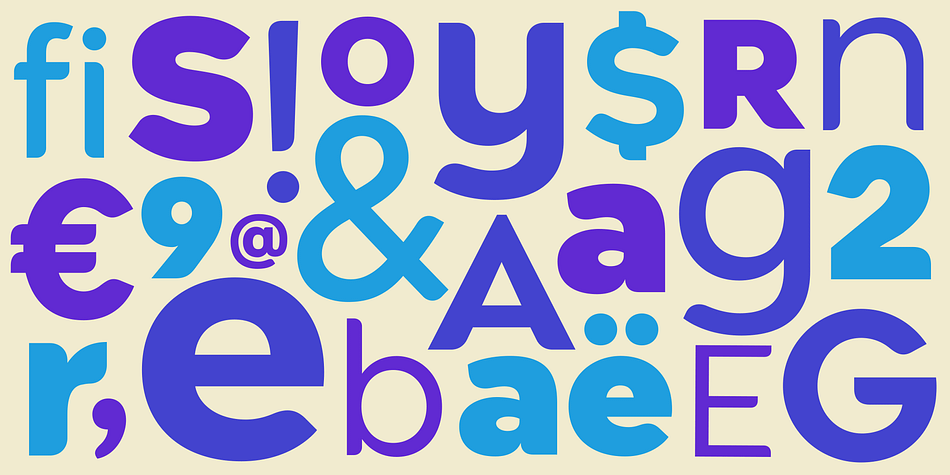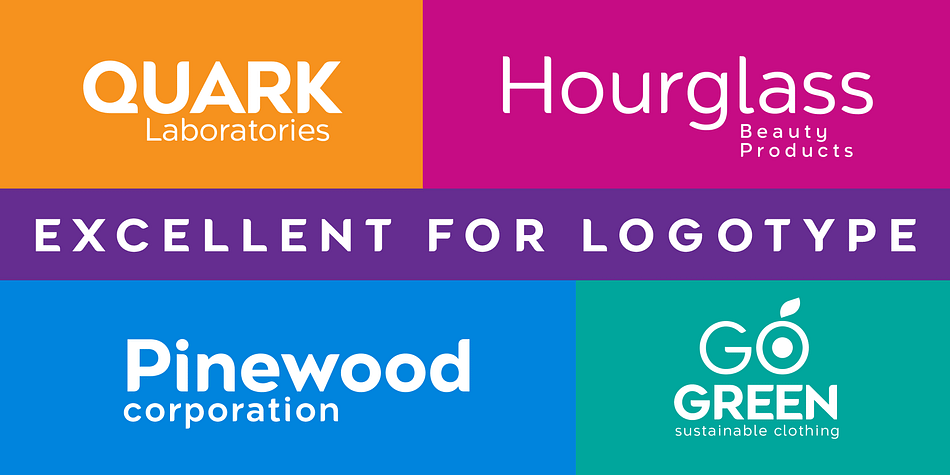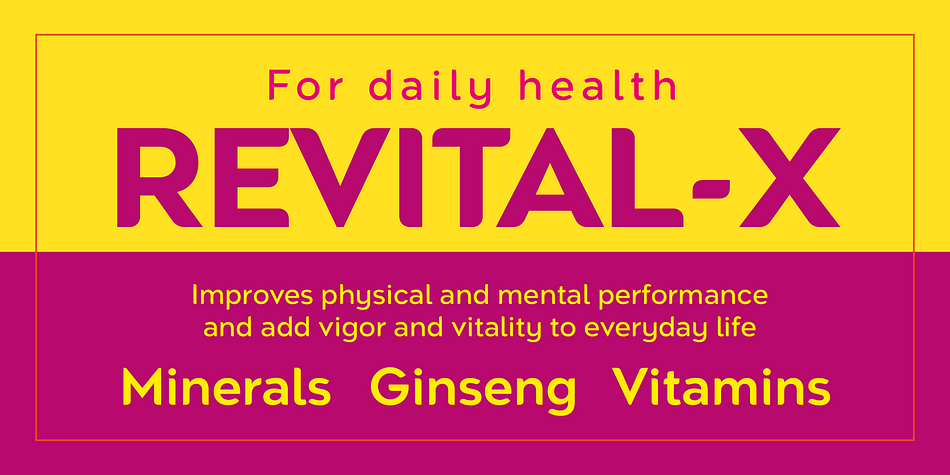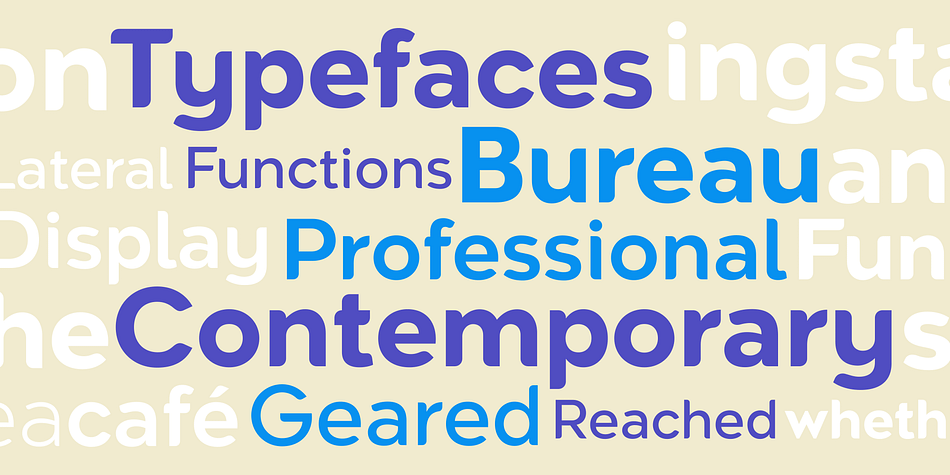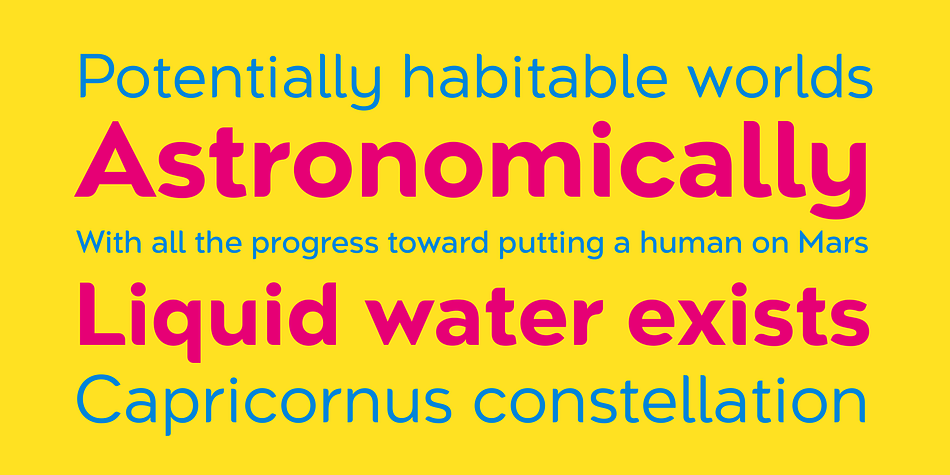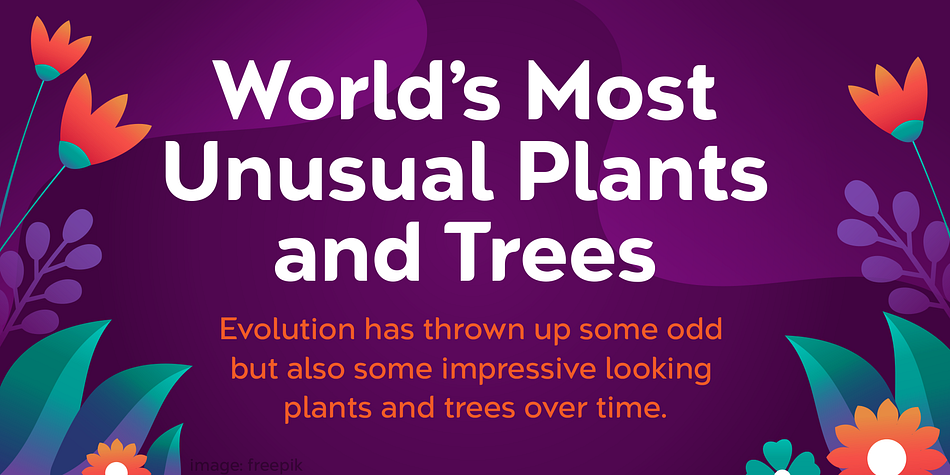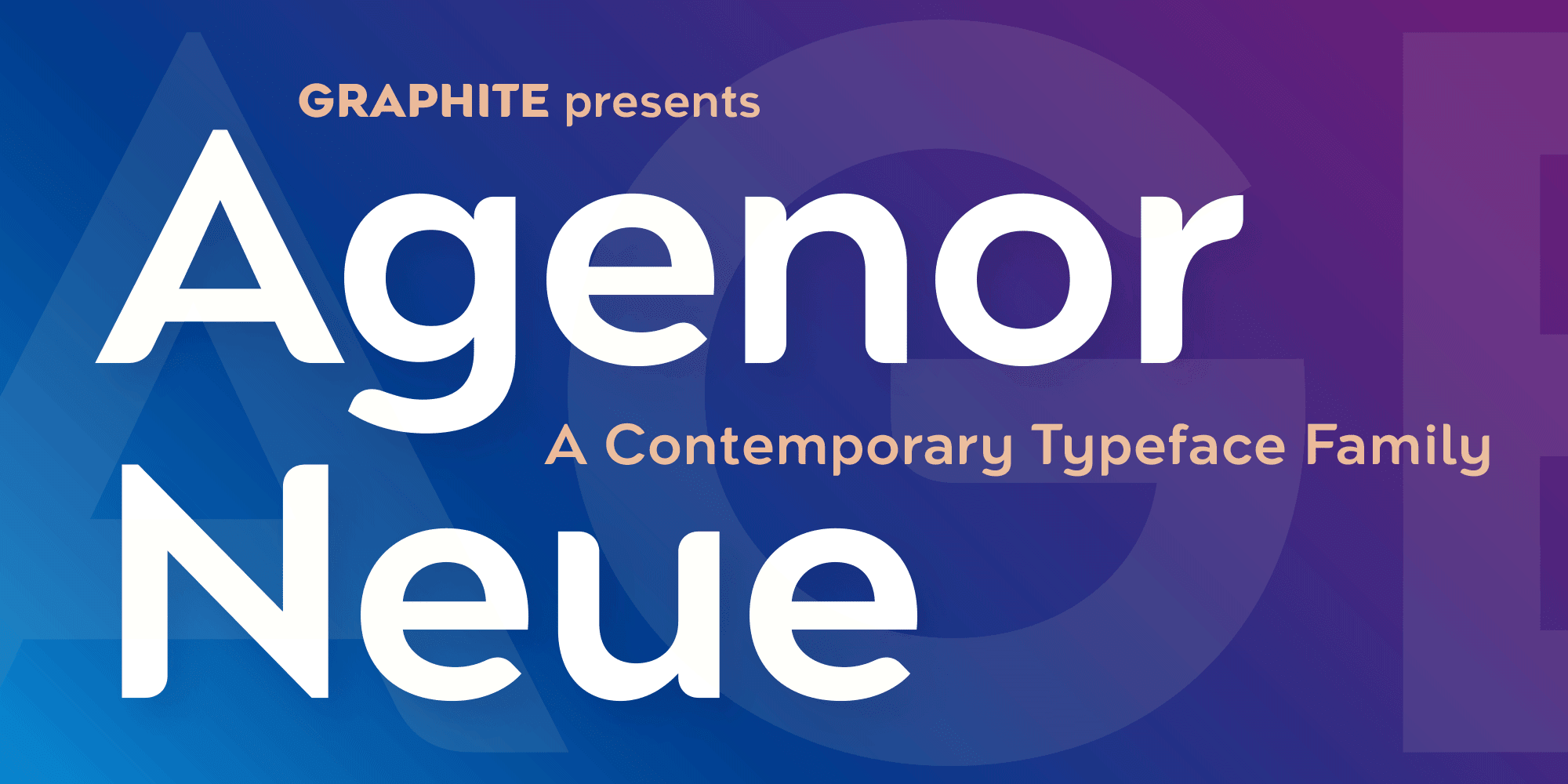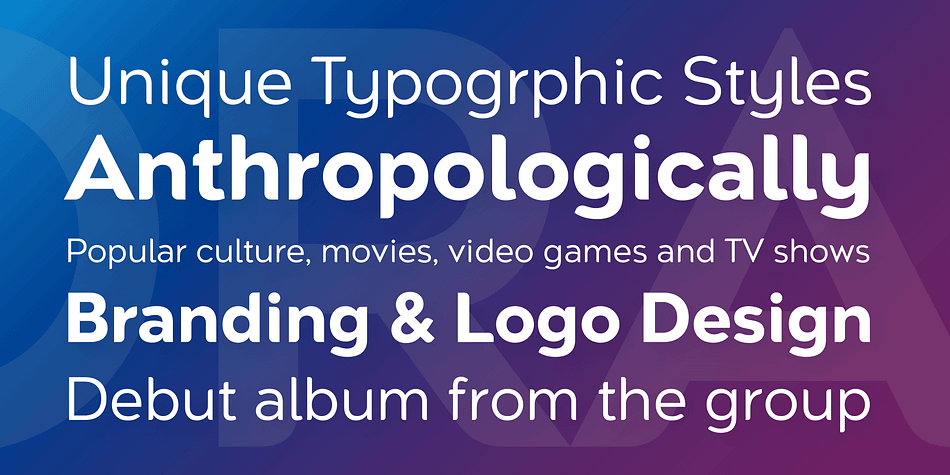
Agenor Neue
Designed by Deepak Dogra, Agenor Neue is a sans serif font family. This typeface has seven styles and was published by Graphite.
Agenor Neue is a geometric sans serif with a slight twist. The selective use of rounded edges gives it a unique and distinct character. Agenor Neue family comes in 7 weights and works great for logotype, headers, titles and any other display usage.
Foundry Graphite
Designer Deepak Dogra